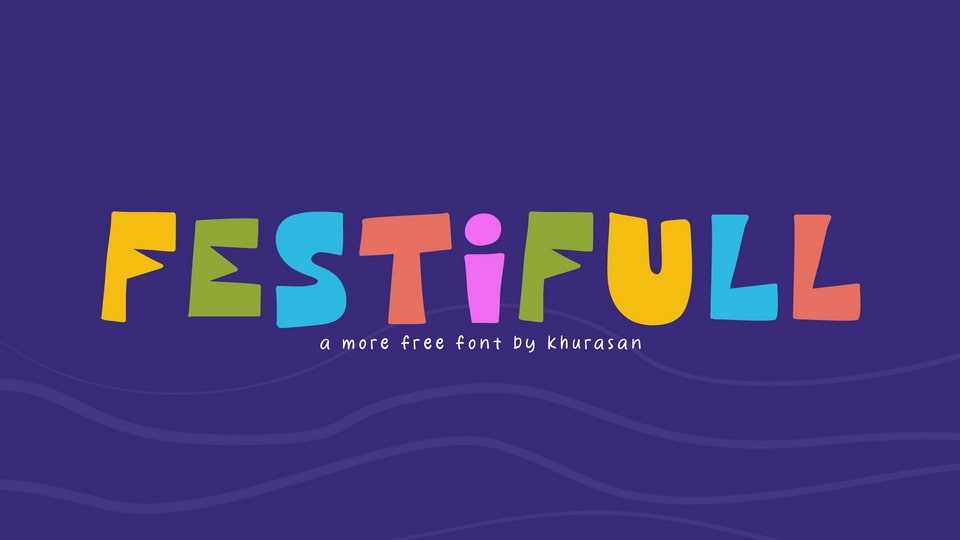
Download Festiful font, a playful cartoon typeface that brings the party to your designs. This font is all about creating designs that capture the essence of a lively carnival, a colorful parade, or a fun-filled street festival.